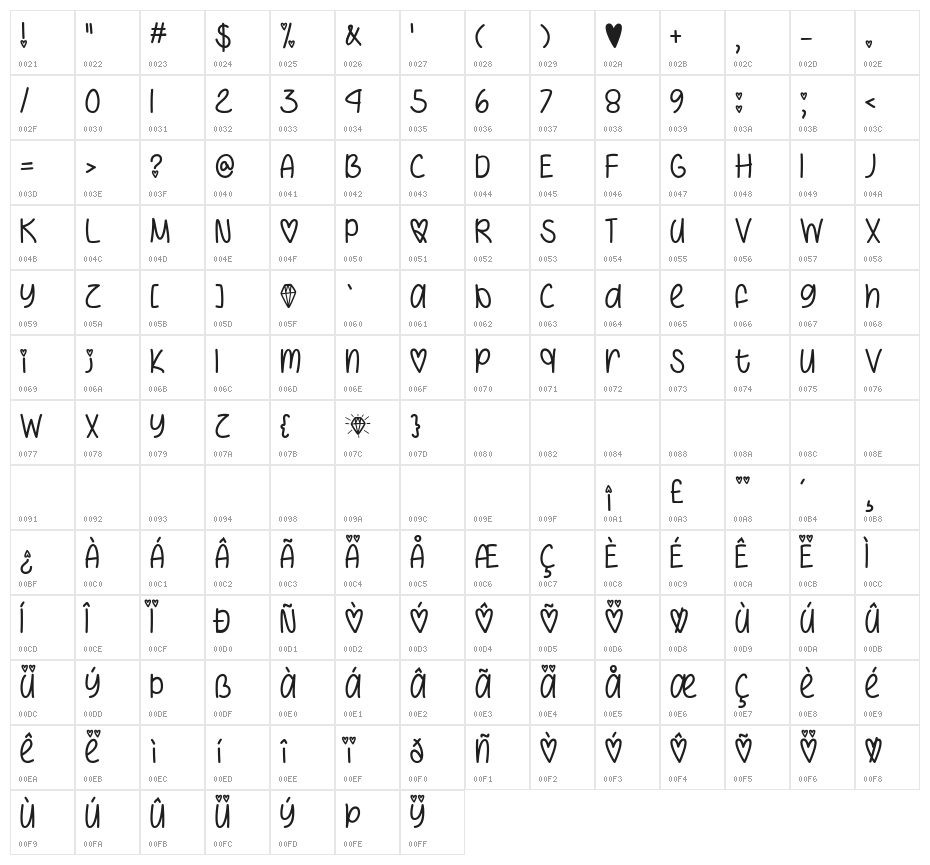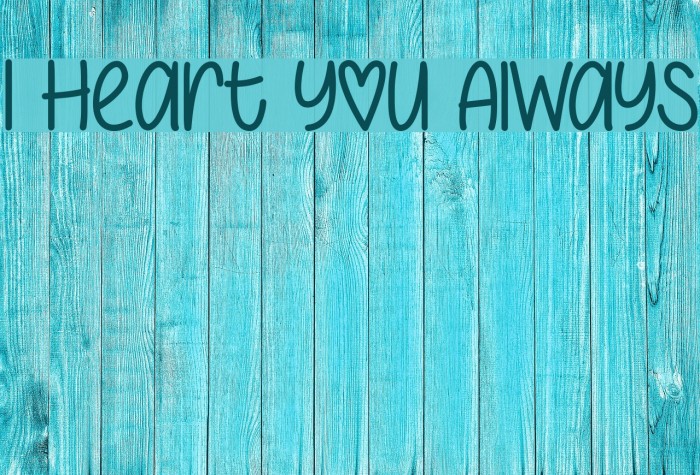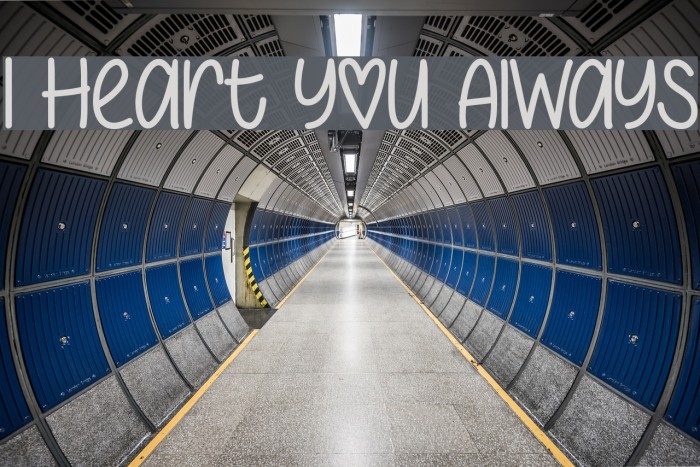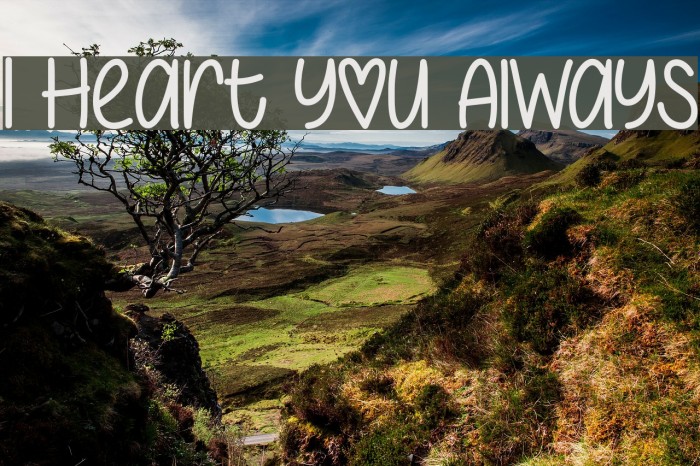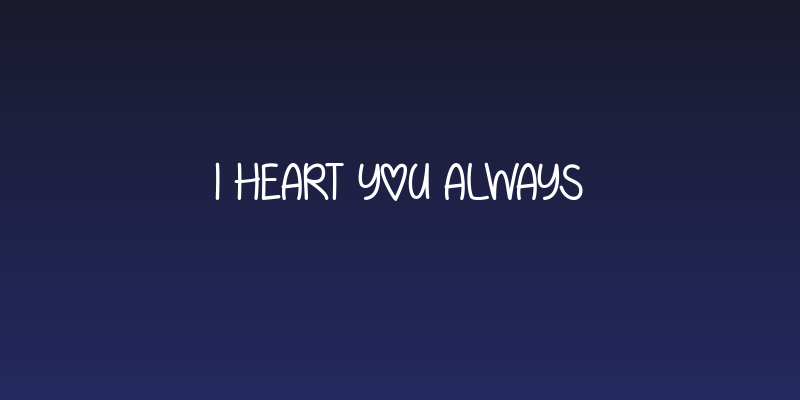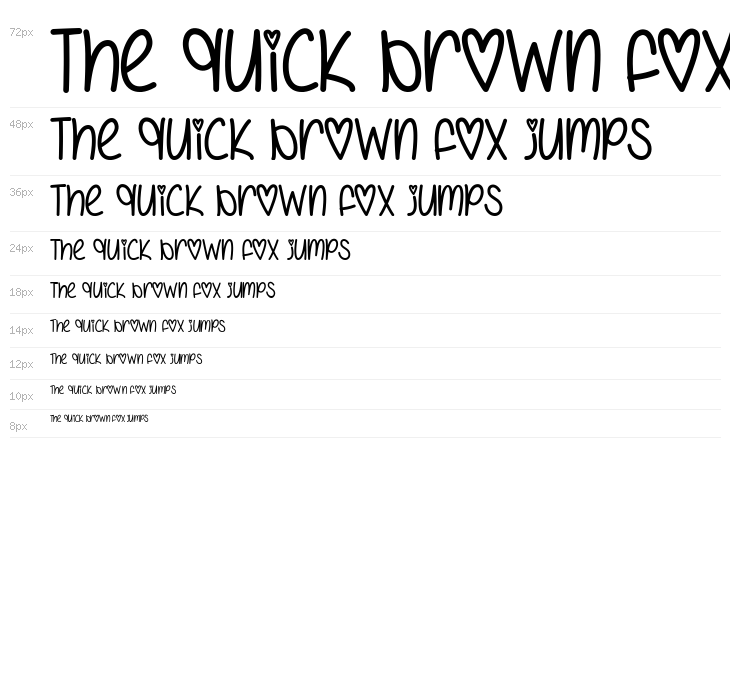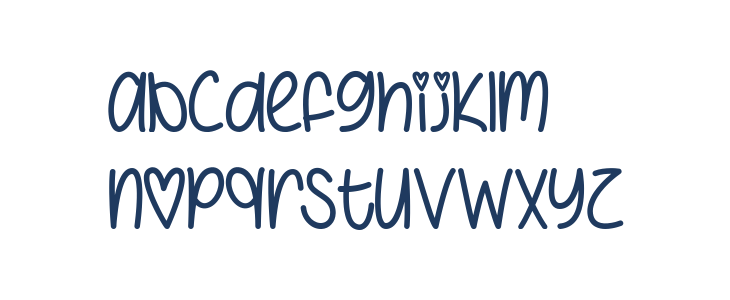
I Heart You Always Font
I Heart You Always Description
This playful and whimsical font features a handwritten style with a unique twist. The letters are rounded and smooth, with a consistent stroke width that gives it a friendly and approachable feel. Notably, the font incorporates heart shapes into certain characters, such as the uppercase 'O' and 'R', as well as the lowercase 'i' and 'j', adding a romantic and charming touch. The numerals and special characters maintain the same playful aesthetic, making it suitable for creative and lighthearted projects. The overall design is cohesive and visually appealing, perfect for conveying warmth and affection.